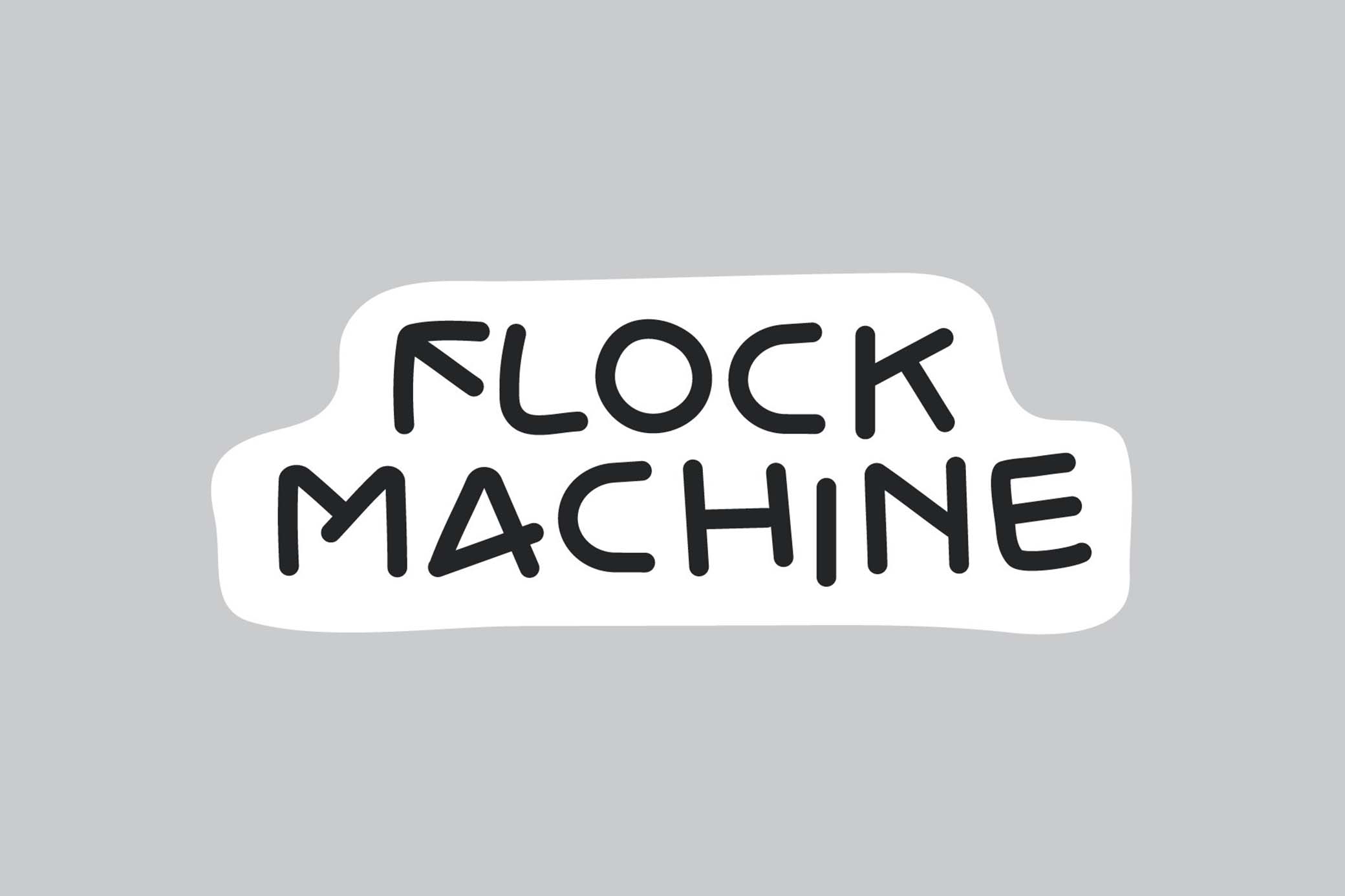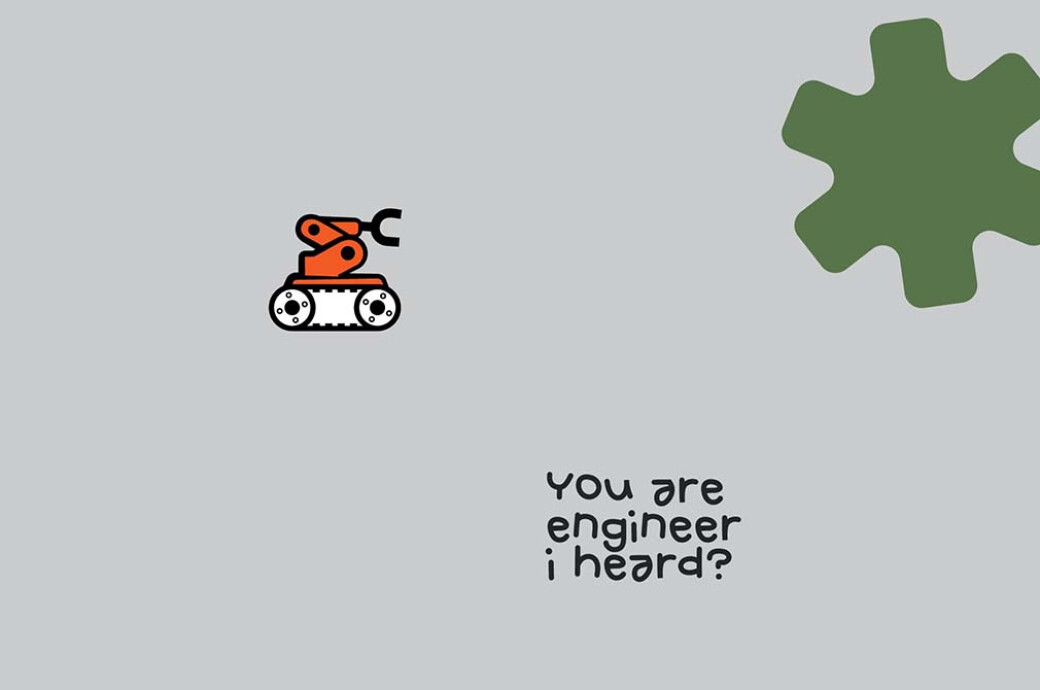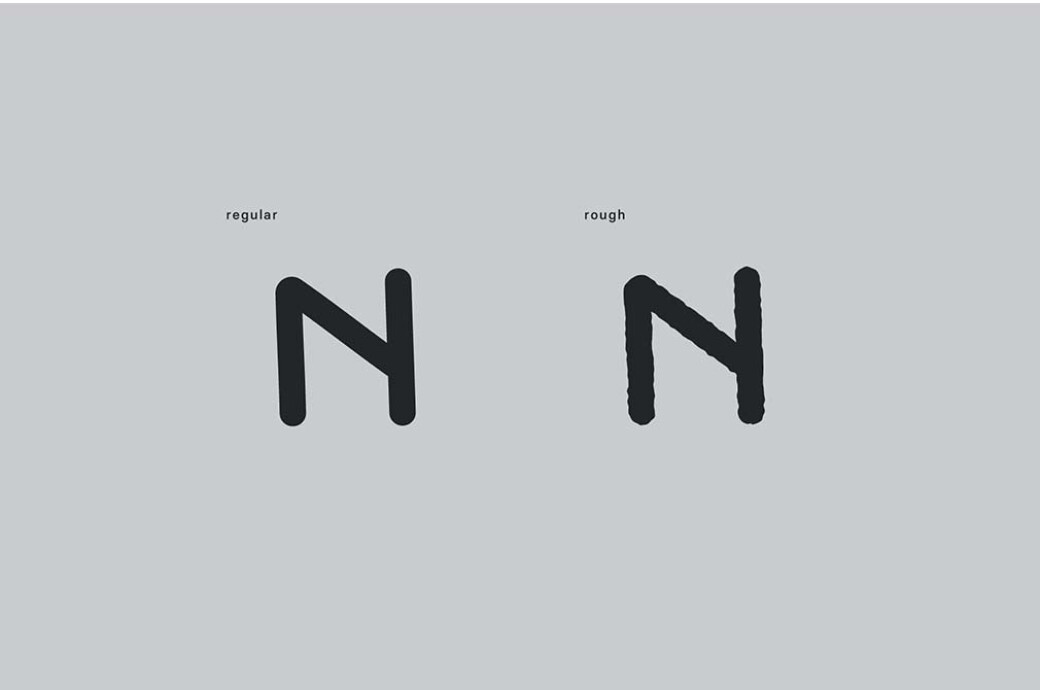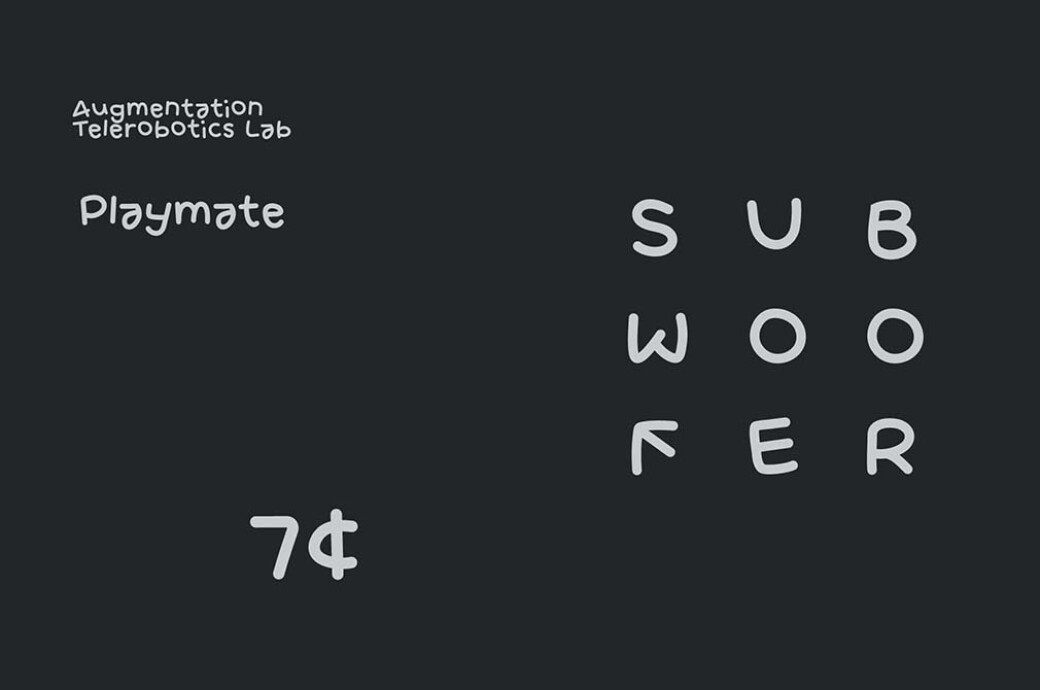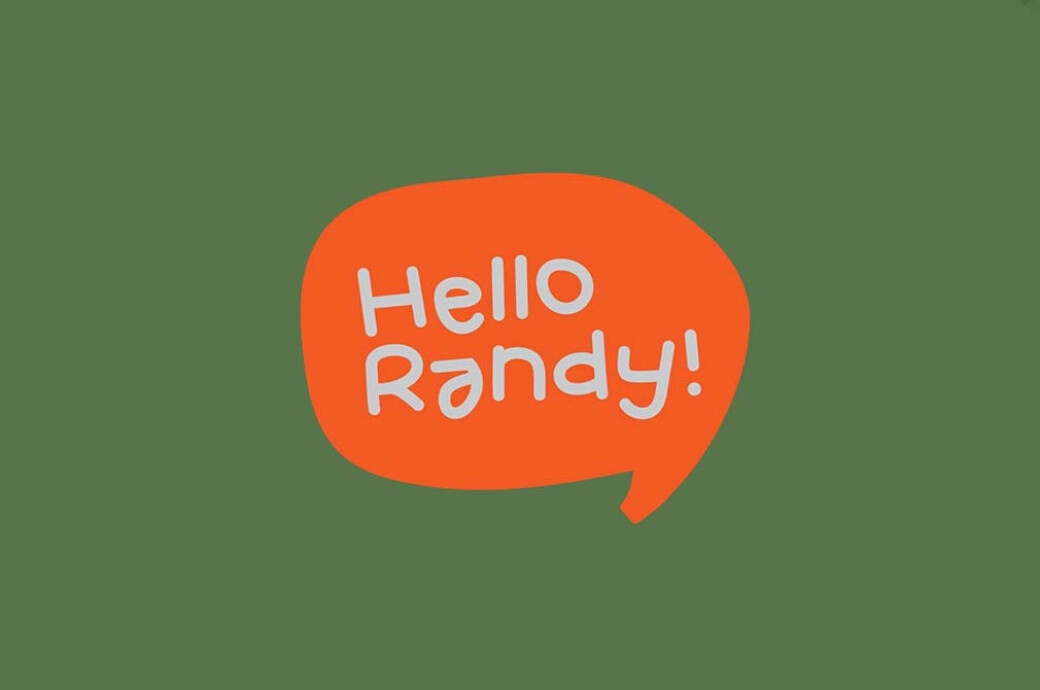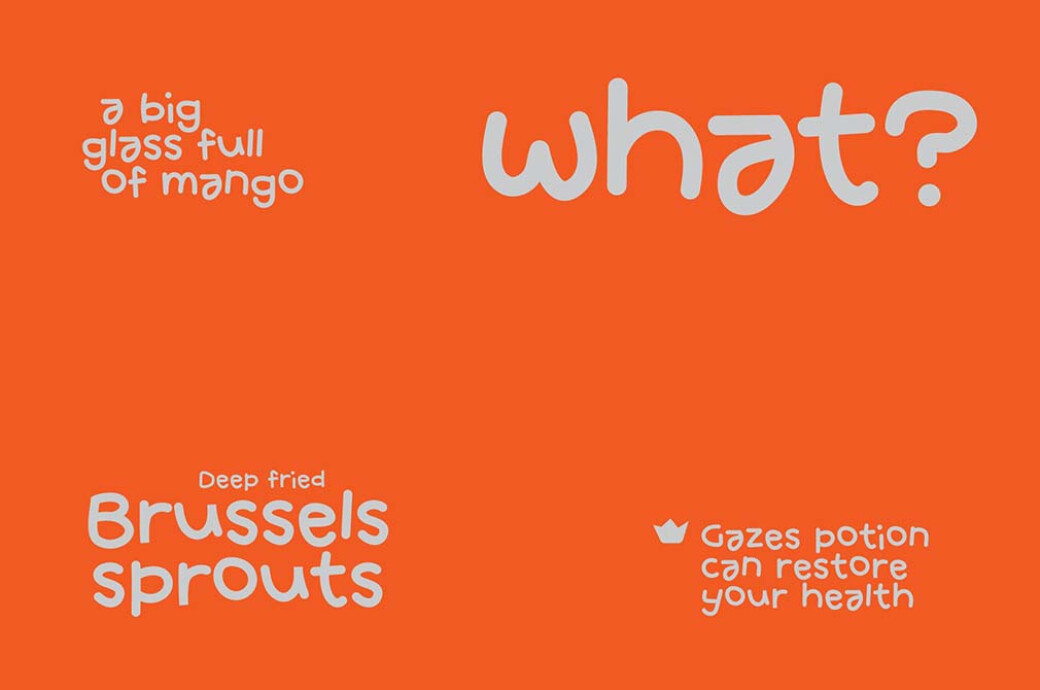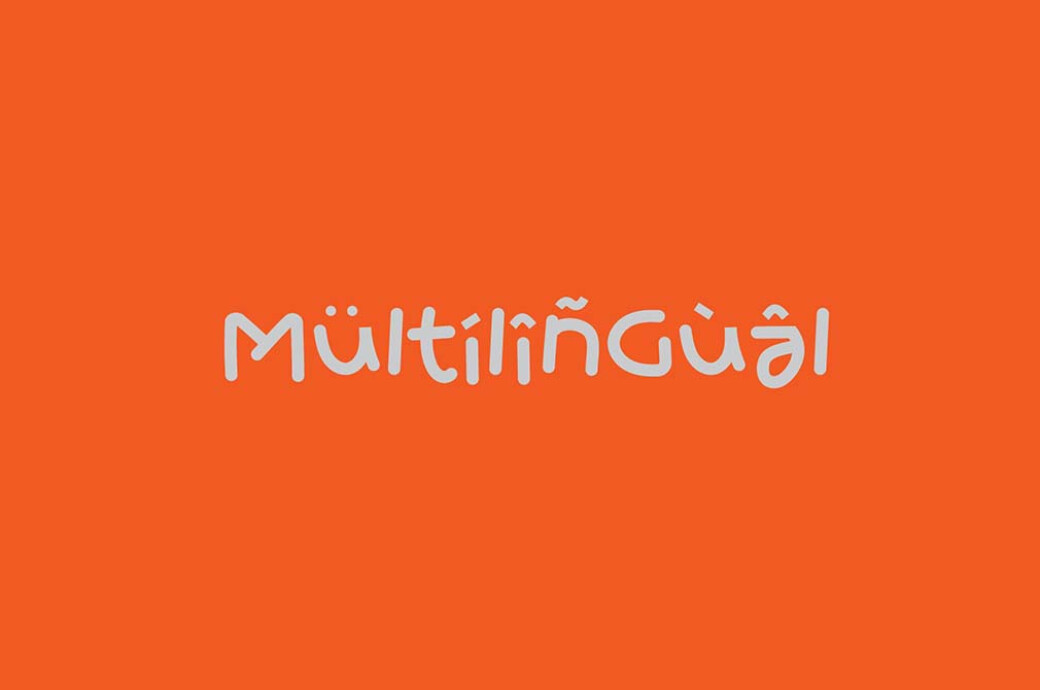
Flock Machine Font
When life gets stressful, it’s time to light it up! For example, you can craft some playful designs. And we’re here with a perfect font for this purpose — Flock Machine.Breathe life into your artwork with this font, a true epitome of handwritten charm and whimsical vigor. Ideal for projects that require a touch of the organic and the joyously unrestrained, its joyful mood captivates and enthralls. The richness doesn't end there: Flock Machine font boasts 4 distinct styles, a library of over 200 glyphs, seamlessly incorporating punctuation and numerals, ensuring your designs resonate with boundless creativity.